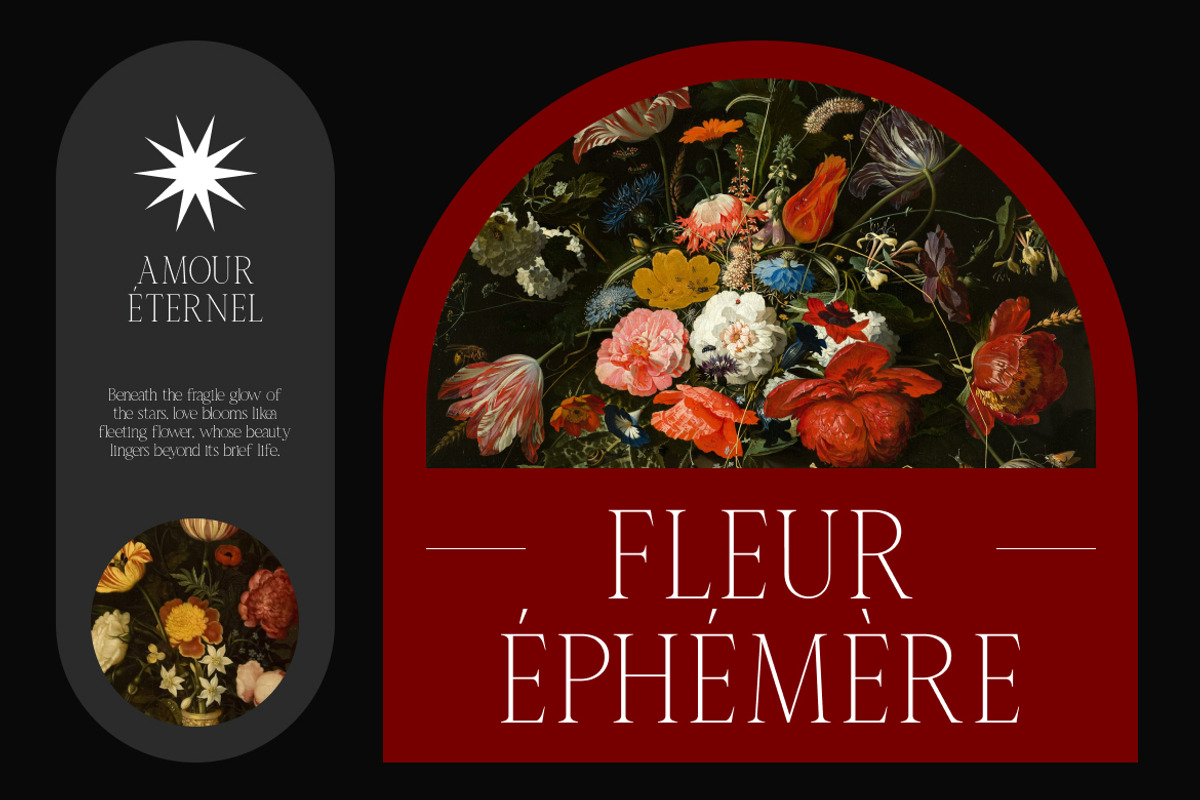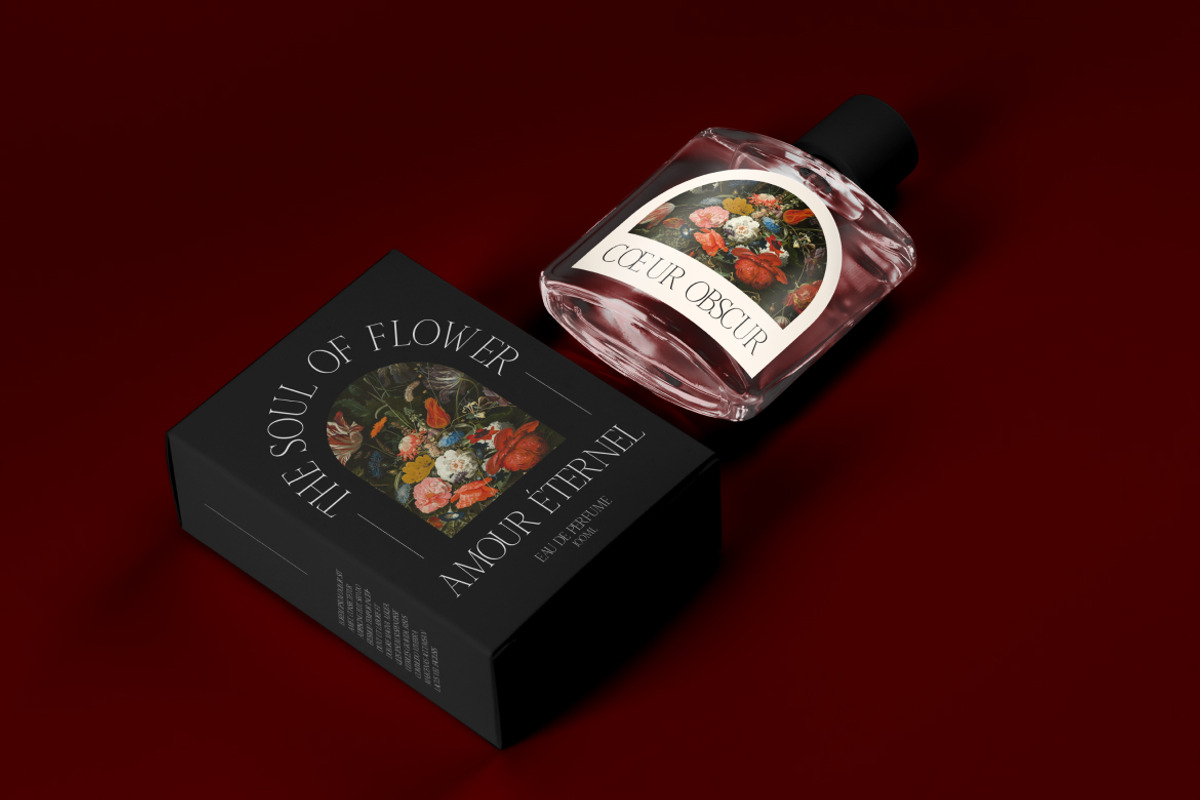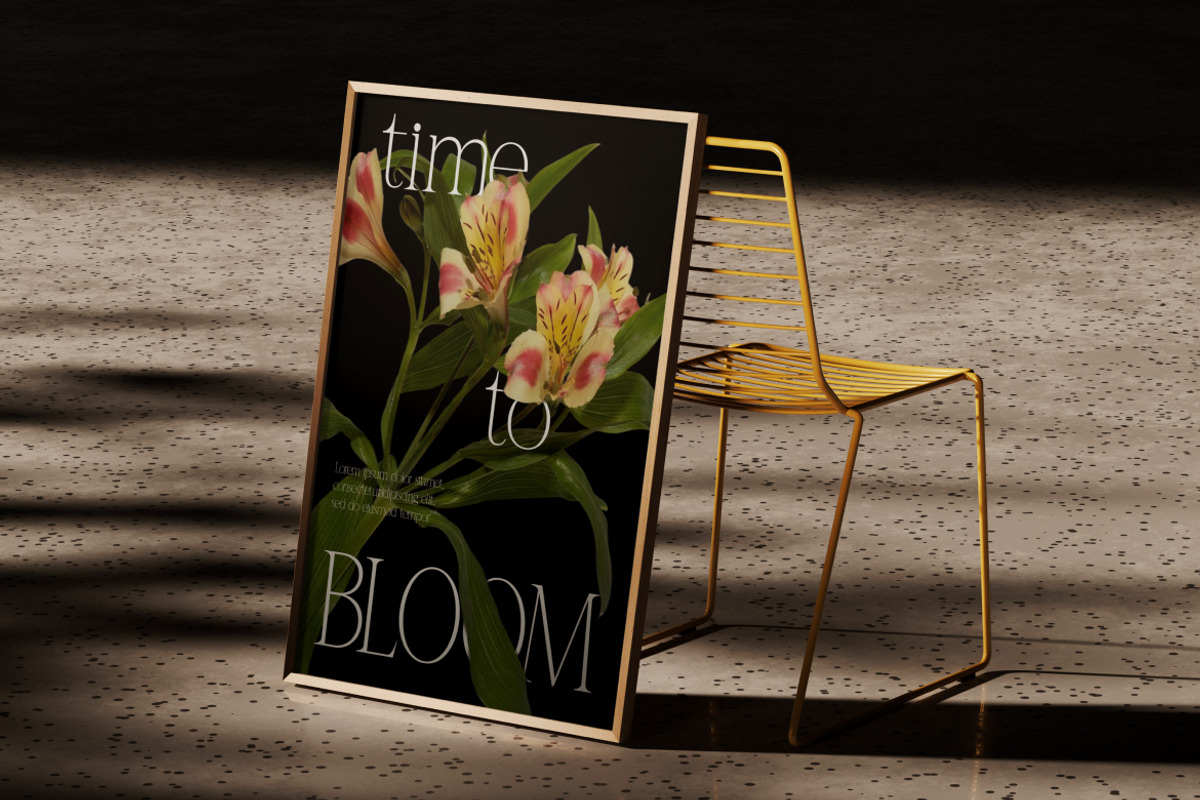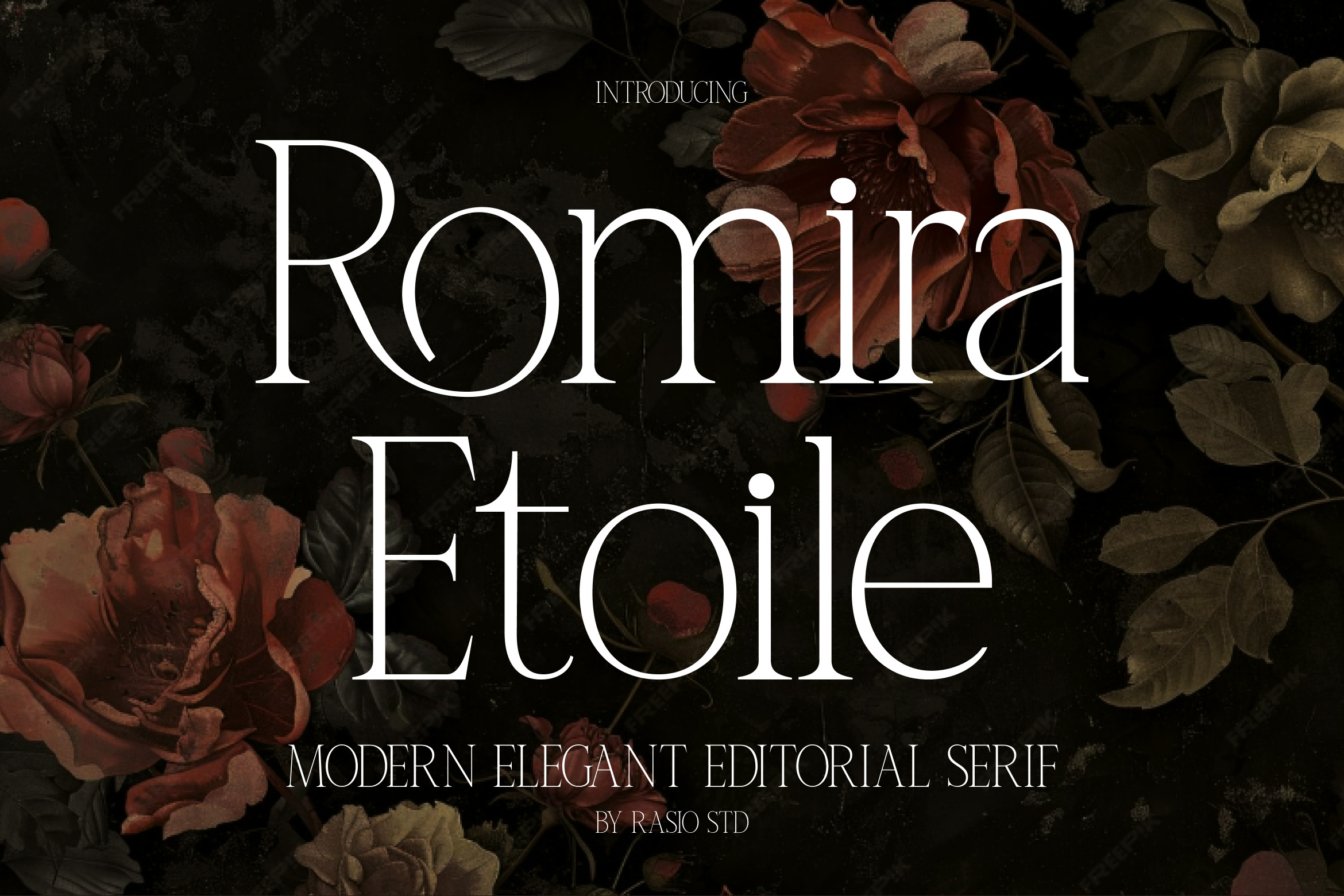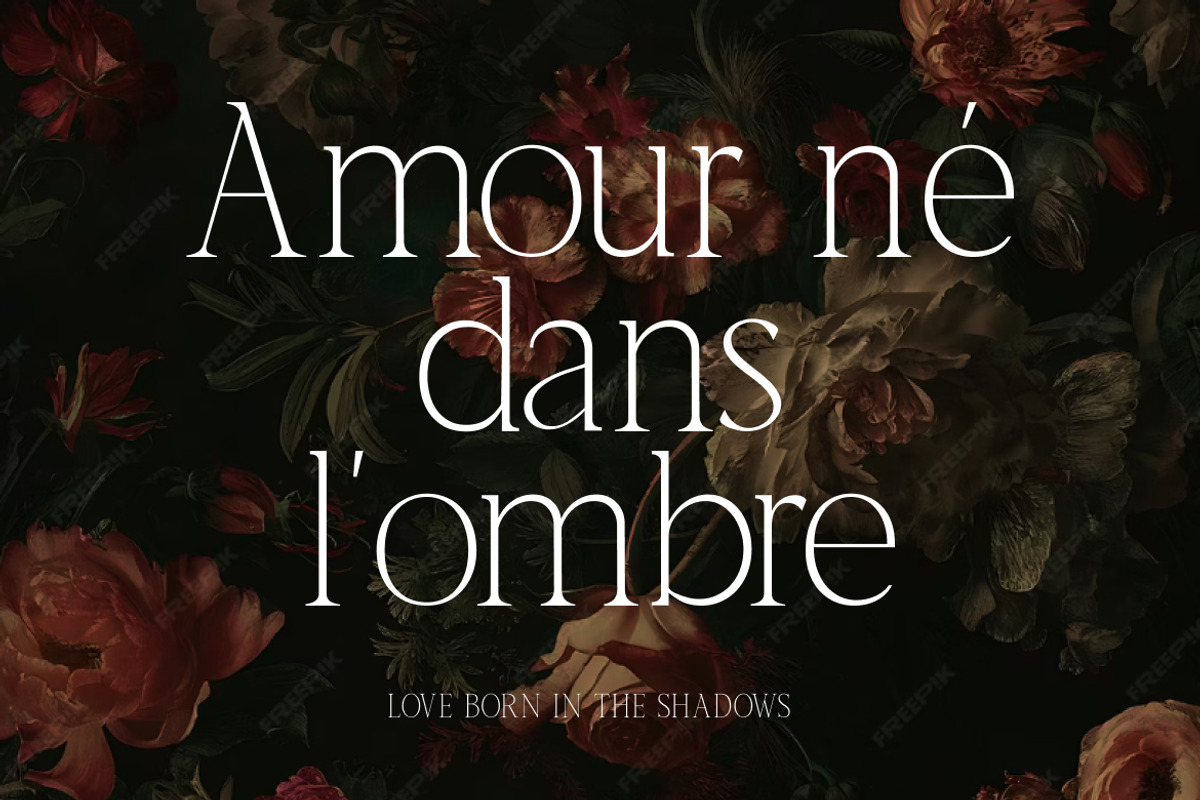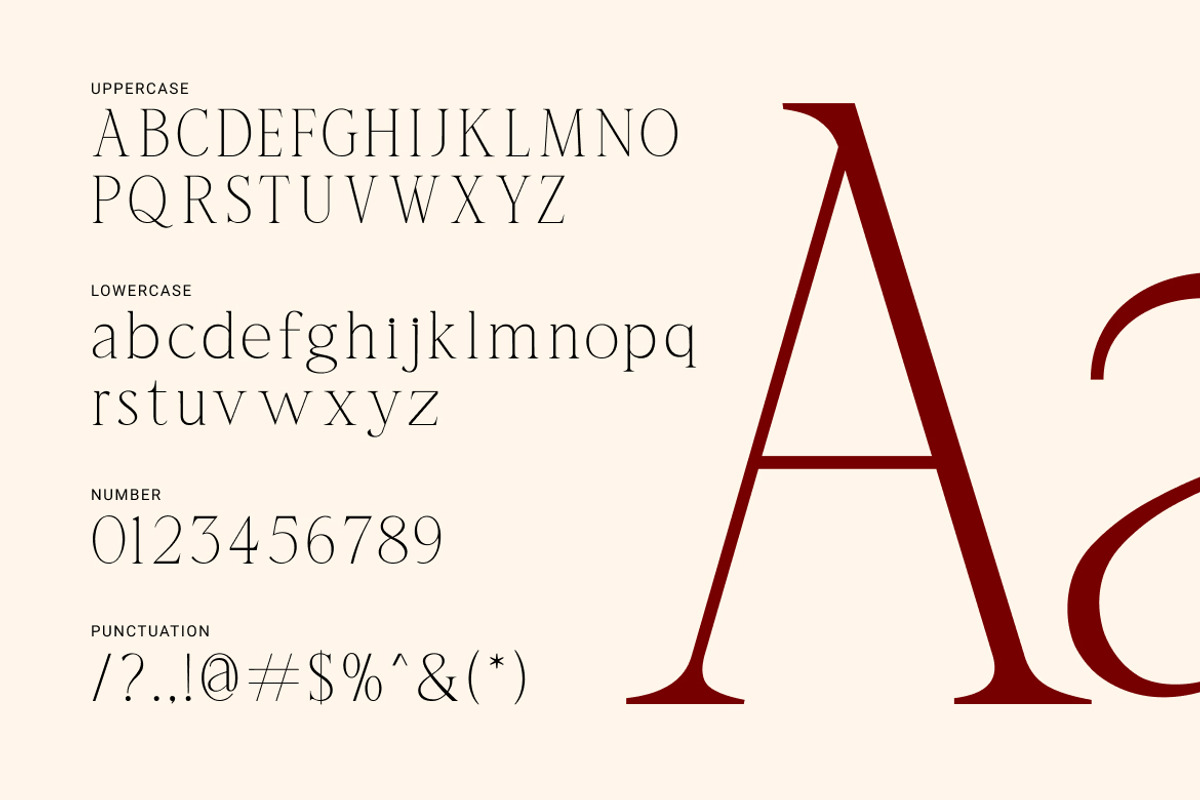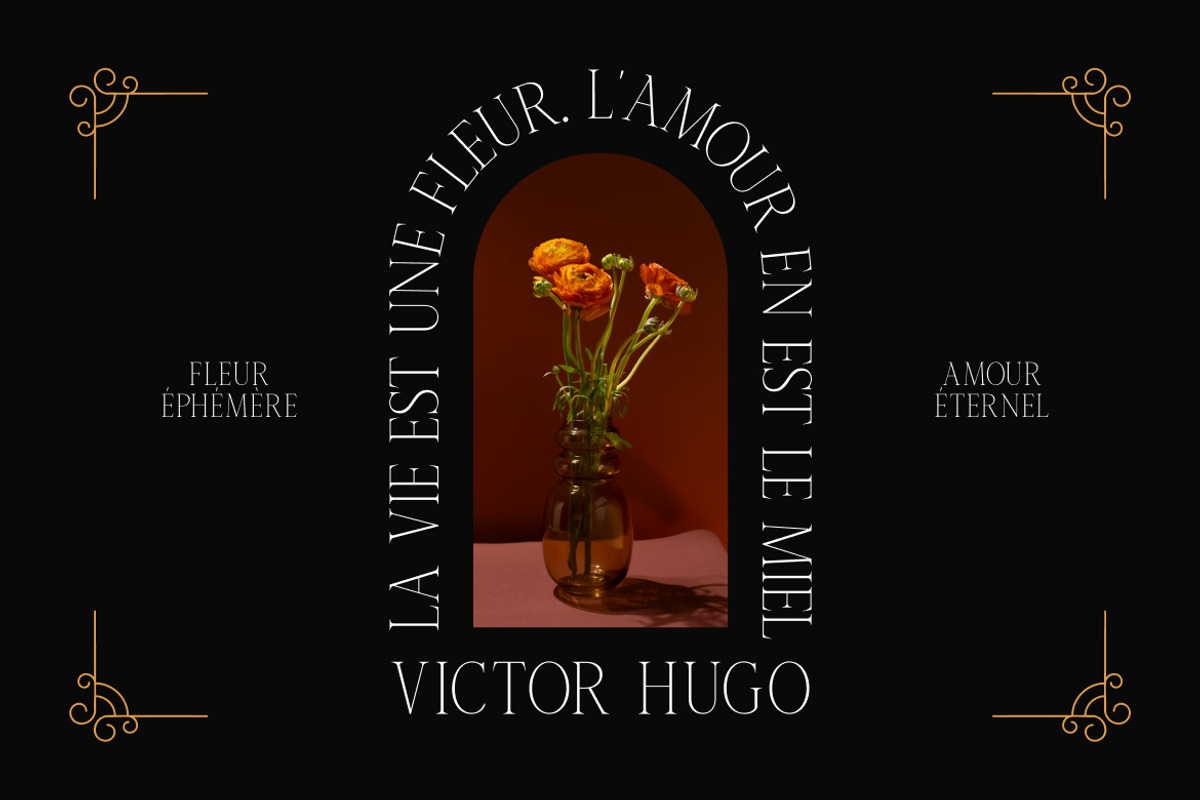
Romira Etoile Elegant Serif Font
Romira Etoile is a refined modern serif font designed for elegant, editorial, and luxury-driven projects. Featuring high-contrast strokes, graceful curves, and classic proportions, this typeface brings a timeless yet contemporary aesthetic to any design. The font includes uppercase and lowercase letters, numerals, punctuation, and essential symbols, ensuring flexibility across both digital and print applications.
Romira Etoile is highly relevant for designers and brands seeking a sophisticated and timeless visual tone. It works beautifully for editorial layouts, luxury brand identities, fashion campaigns, book and magazine covers, premium packaging, wedding stationery, and artistic print designs where elegance and refinement are essential.
- High-contrast serif construction inspired by classic editorial typography
- Refined stroke transitions that create a graceful and luxurious appearance
- Elegant proportions with tall letterforms for a sophisticated visual rhythm
- Sharp yet balanced serifs that enhance clarity in large display sizes
- Carefully crafted curves and spacing for premium readability in headlines and titles
- Luxury brand identity systems requiring a refined and timeless tone
- Fashion editorials, magazines, and high-end publication layouts
- Book covers and chapter titles with a classic yet modern aesthetic
- Premium product packaging and labels for beauty, fragrance, and lifestyle brands
- Wedding stationery, invitations, and romantic design projects
- Social media visuals and marketing materials that emphasize elegance and sophistication
Romira Etoile is crafted for refined editorial beauty